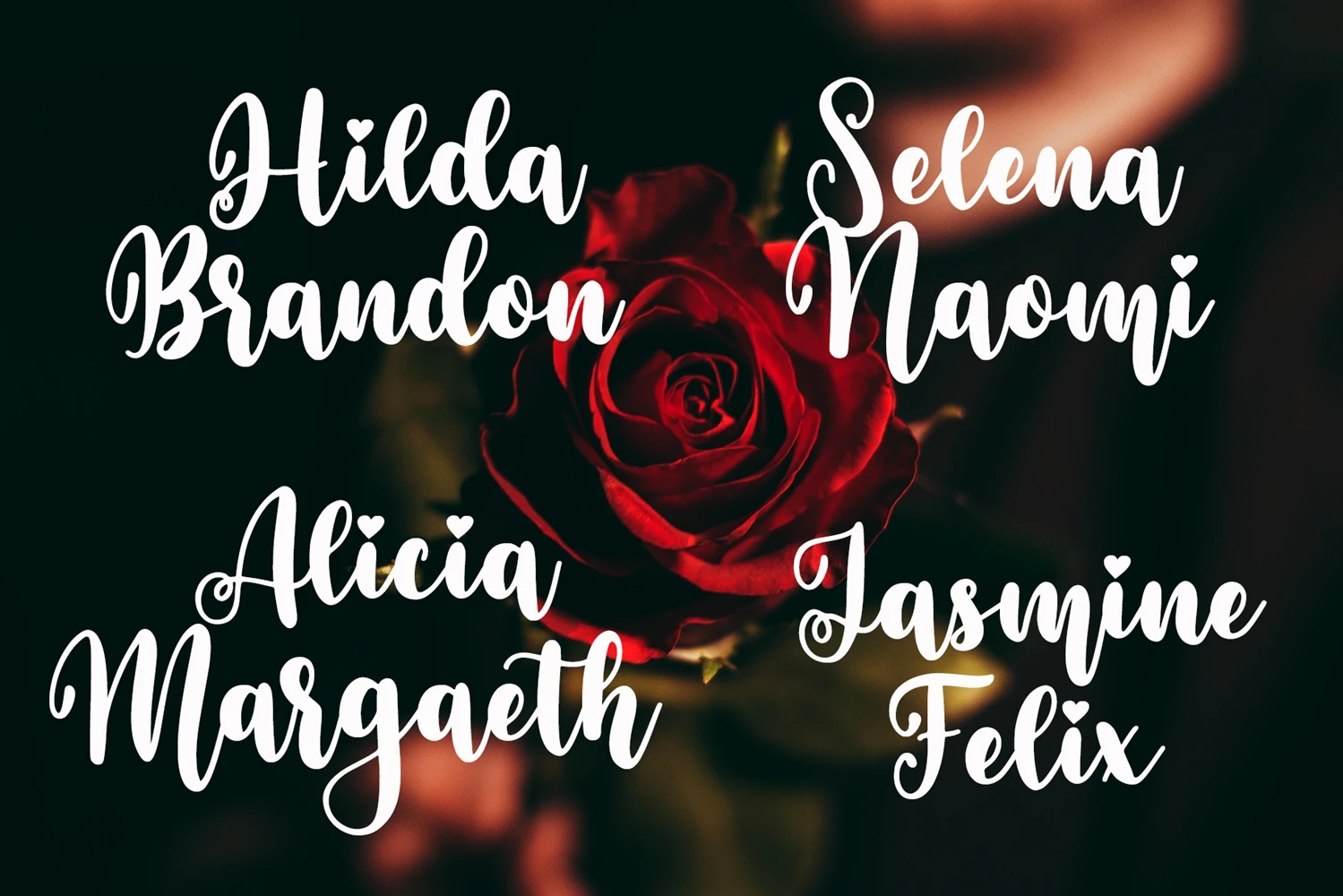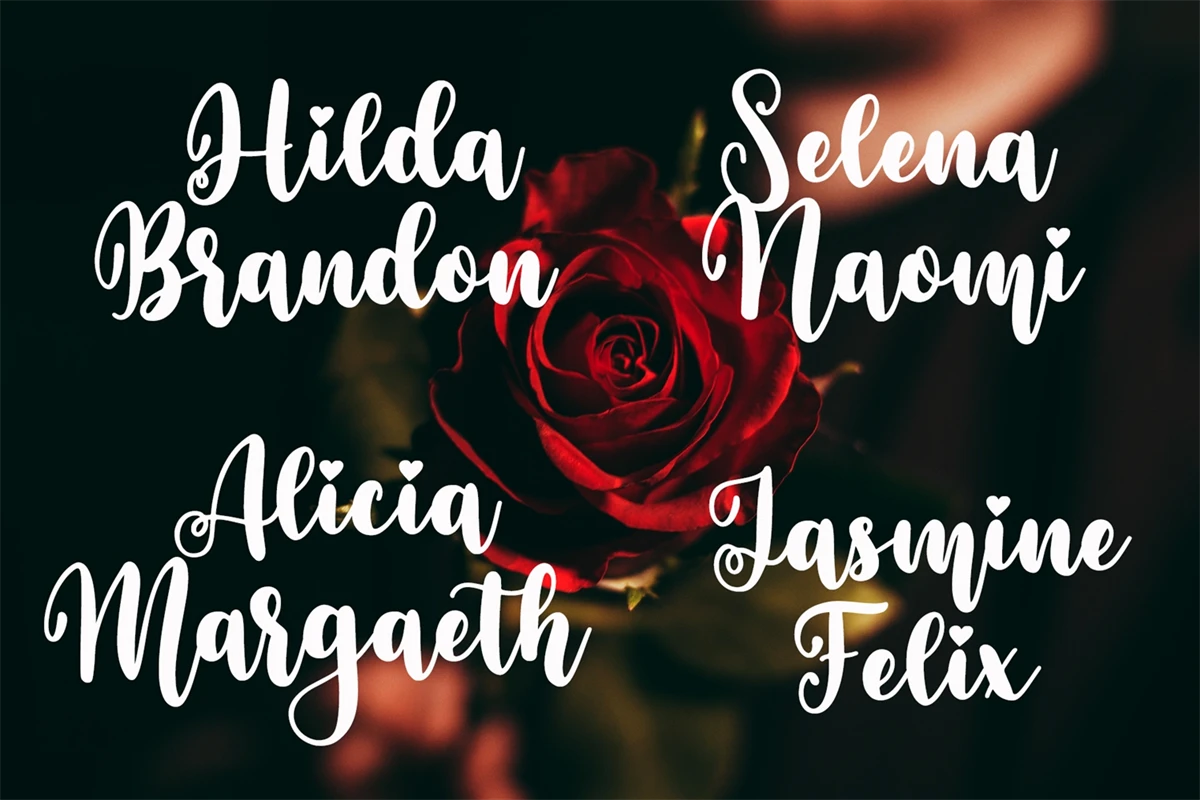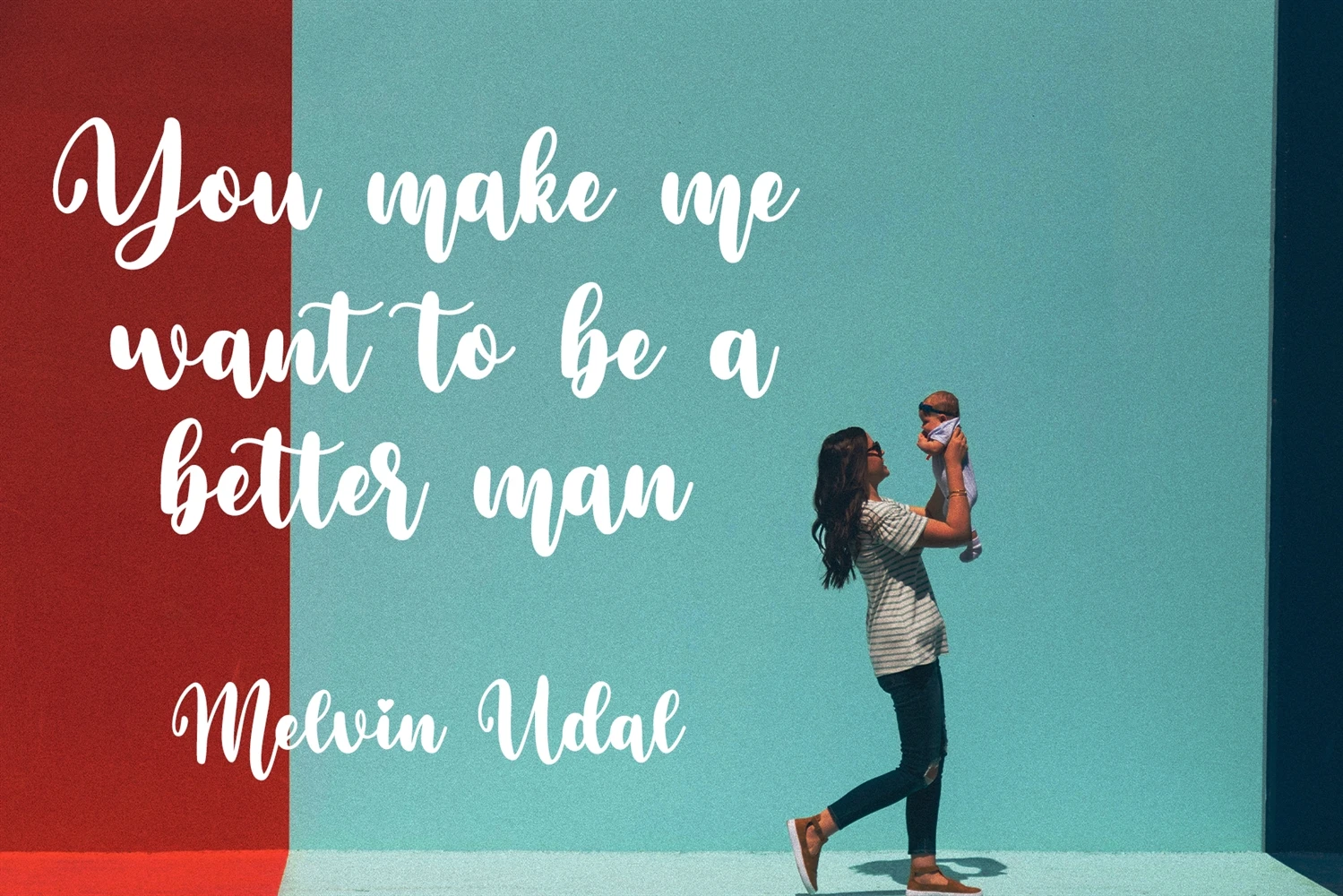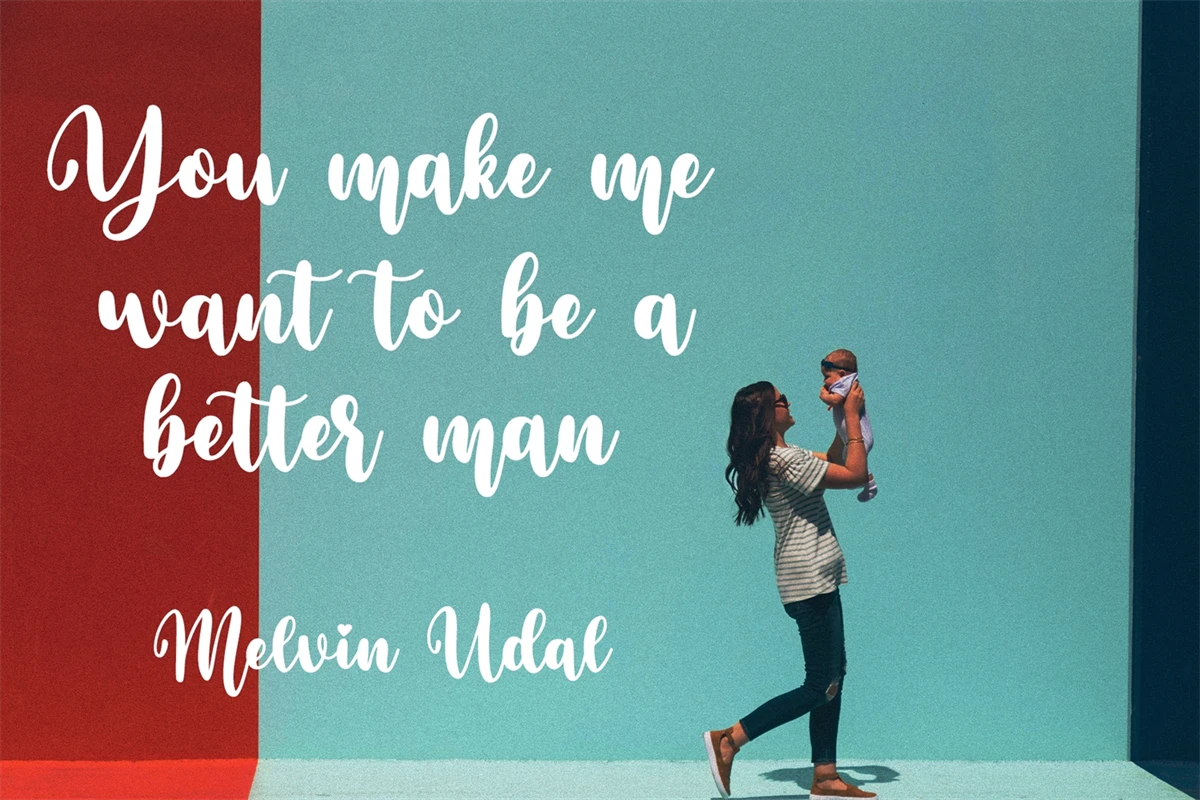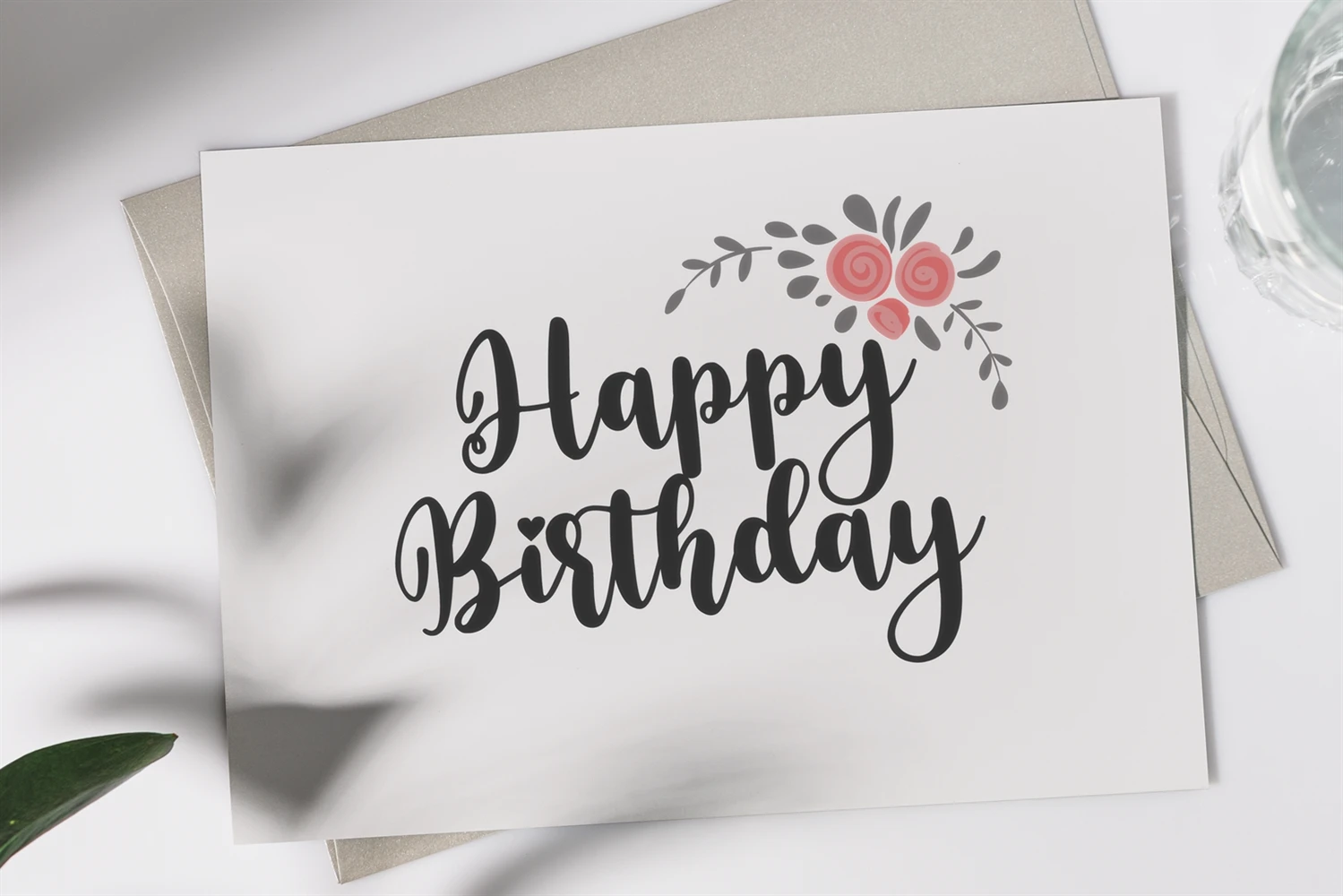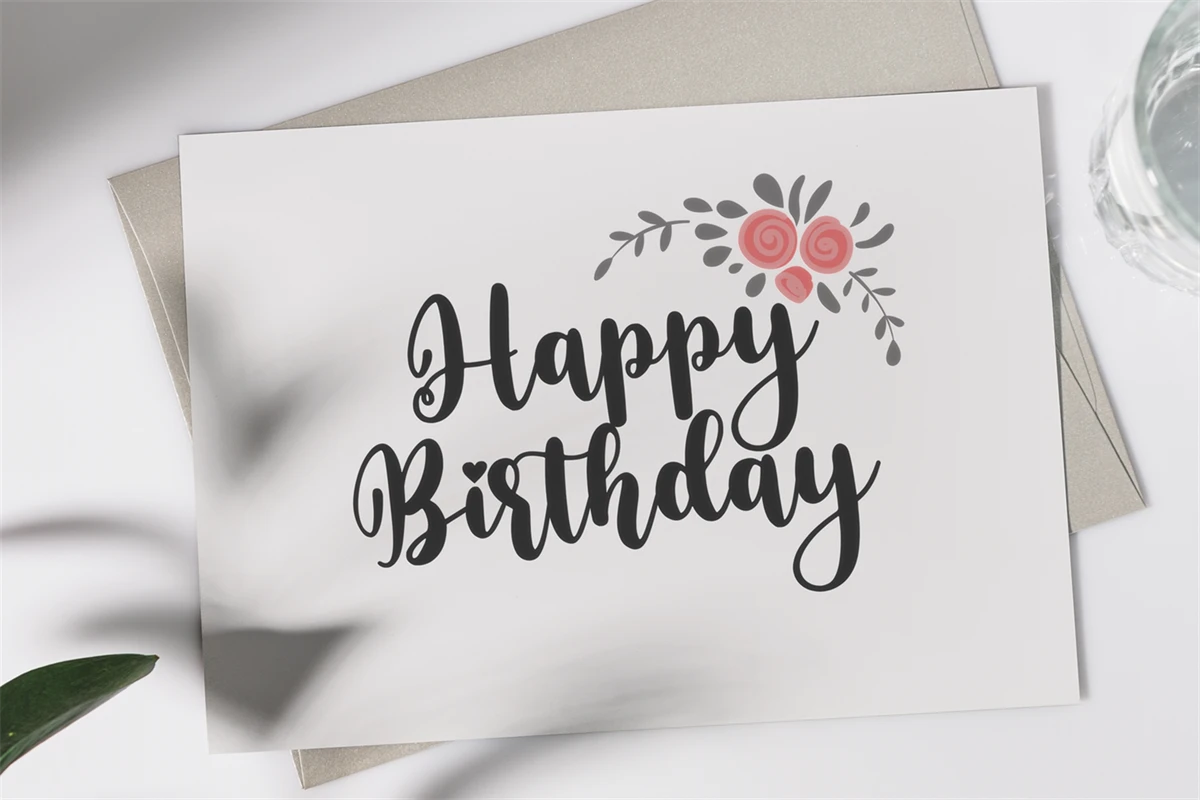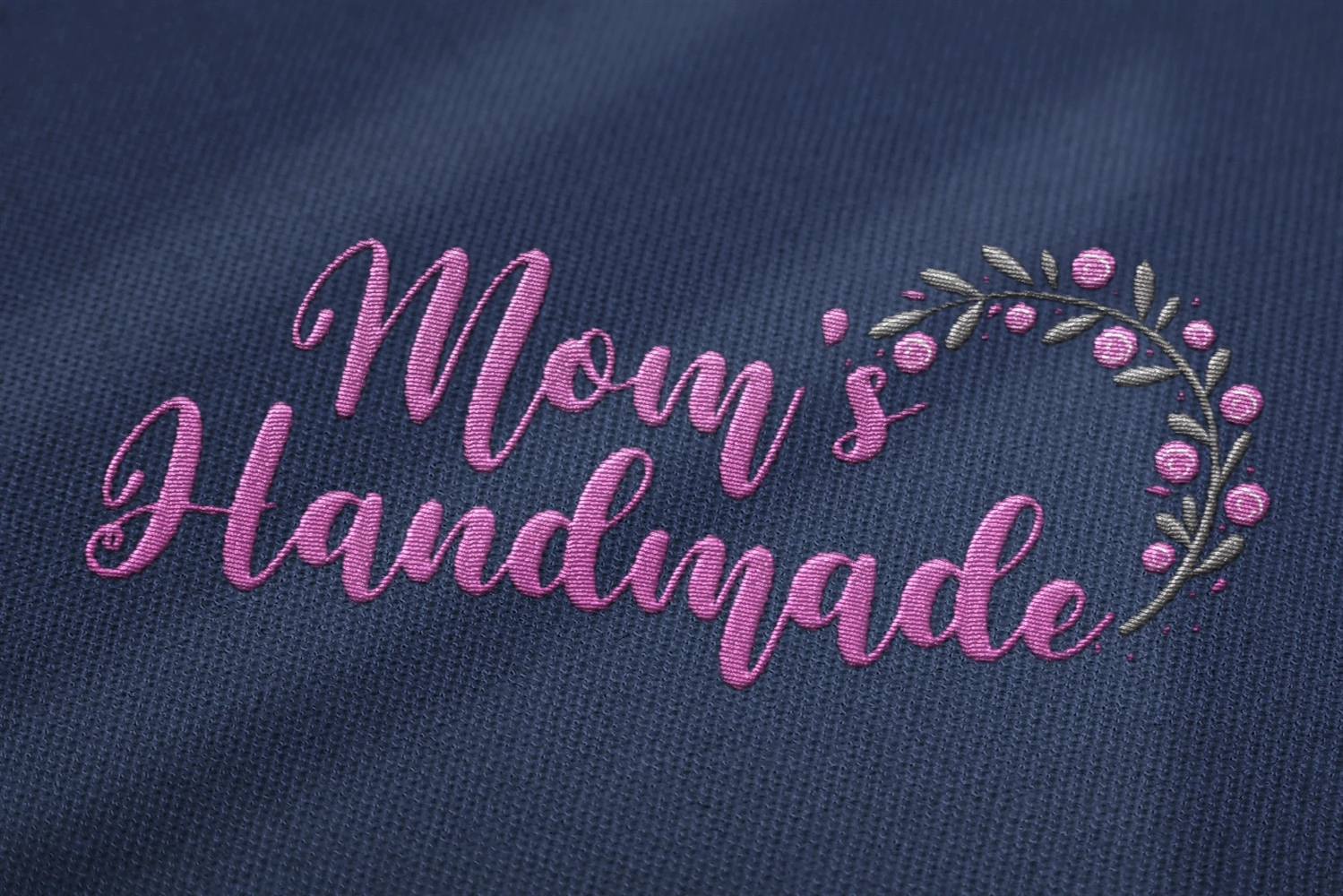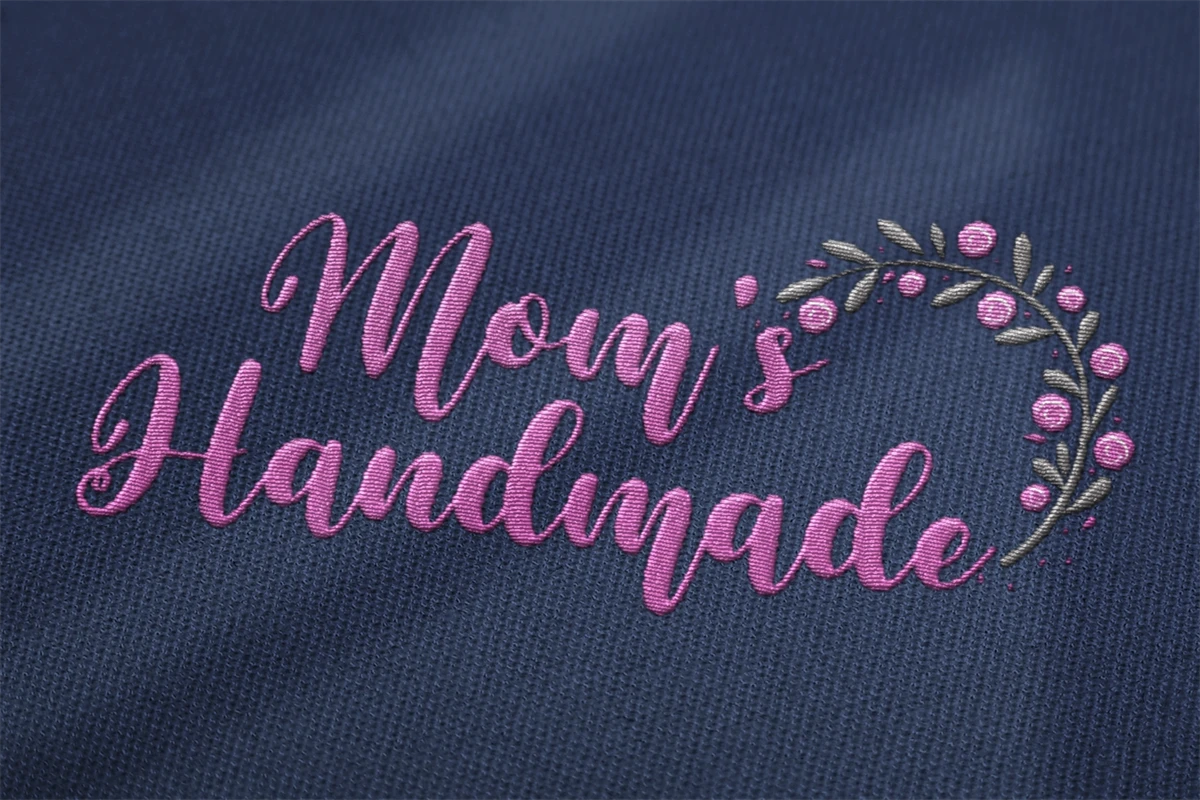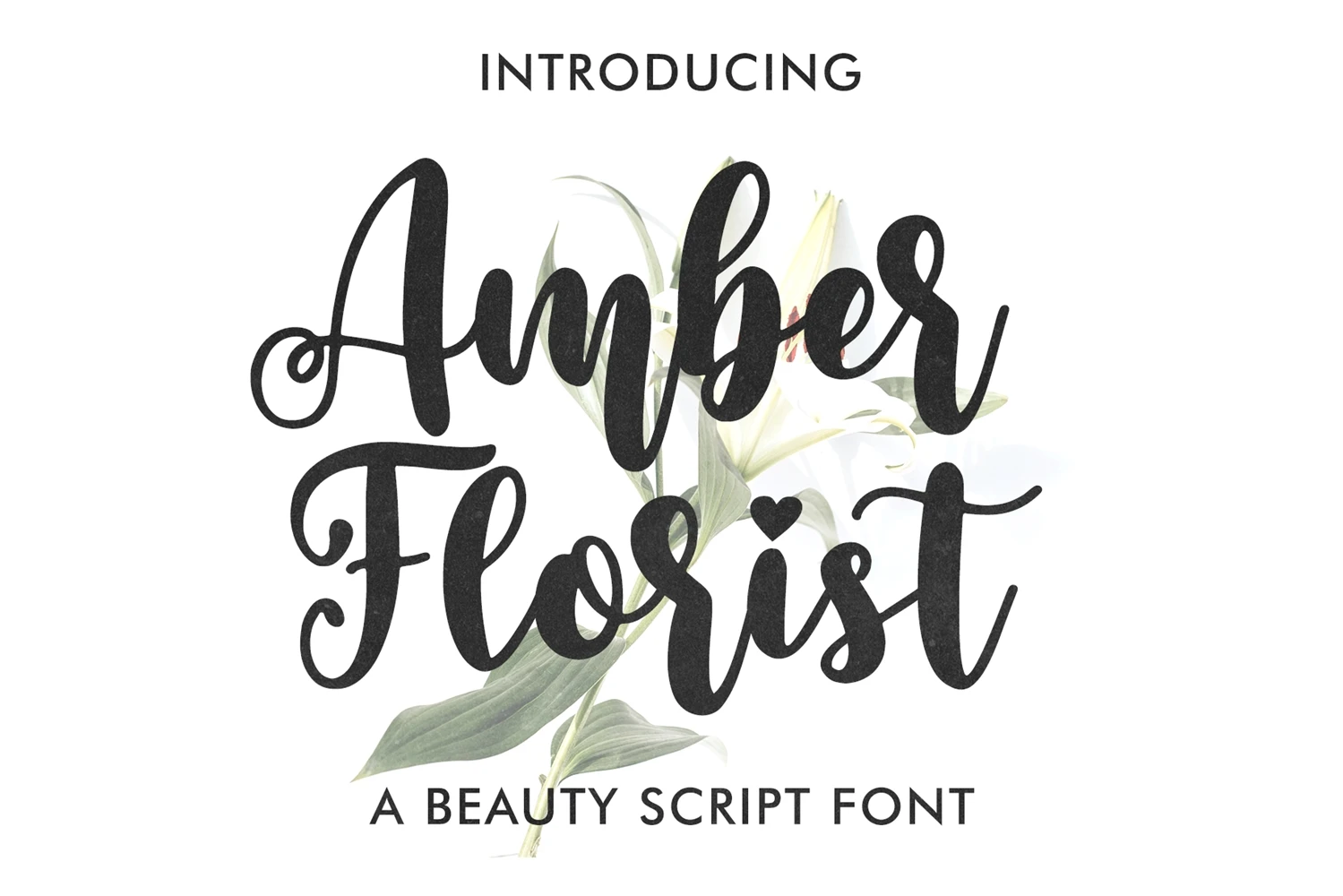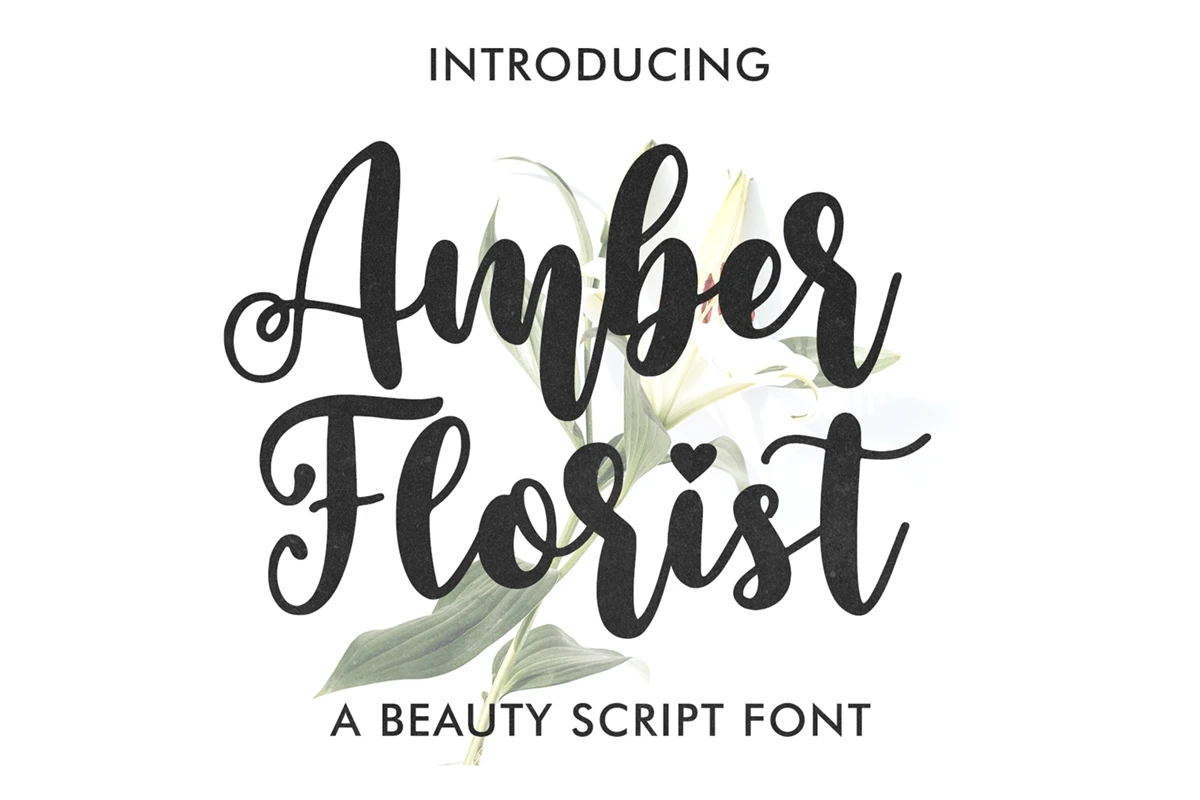
Amber Florist is an assertive and distinct script font.
Expertly designed to make your creation look out of this world, this font will look gorgeous on a variety of ideas.
This font is suitable for Wedding invitation, Love themed design, mugs, christmas cards, poster design etc,
Multilingual Support
Ligature Character